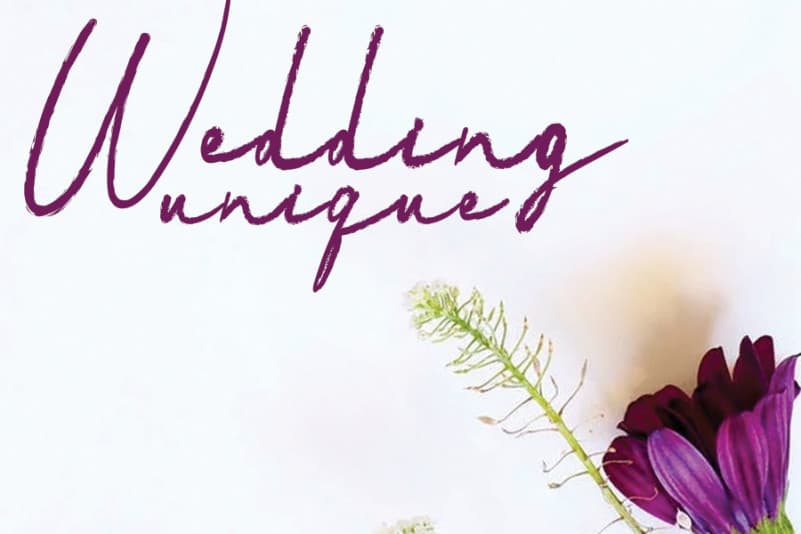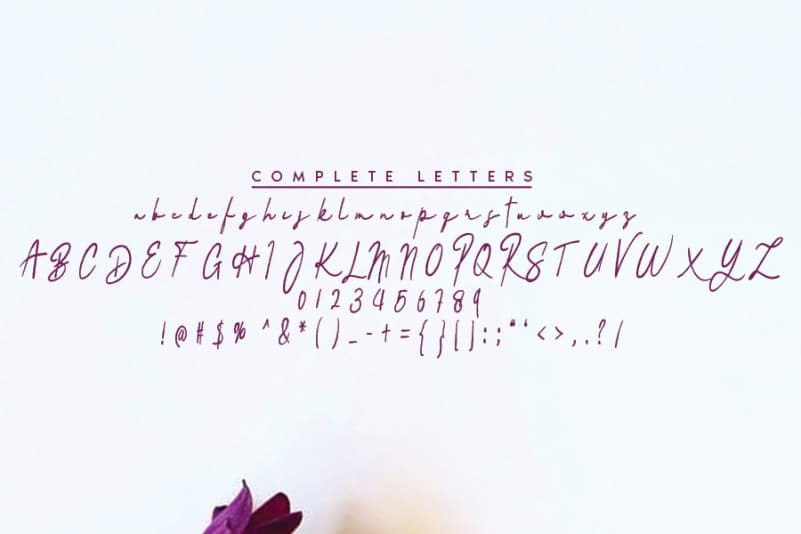
Vadimbrush Brush Font is a gorgeous and unique handwritten font, designed with the help of an outstanding brush pen. Add this font to your favorite creative ideas and notice how it makes them come alive!
The latest style letters are perfect for wall displays, wedding invitations, social media post logos, advertisements, product packaging, product designs, labels, photography, watermarks, invitations, stationery, and any project that requires taste handwriting.